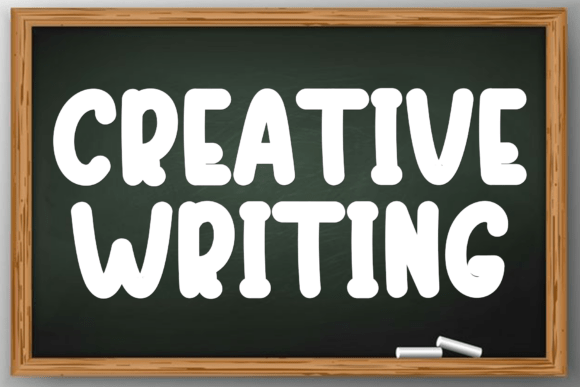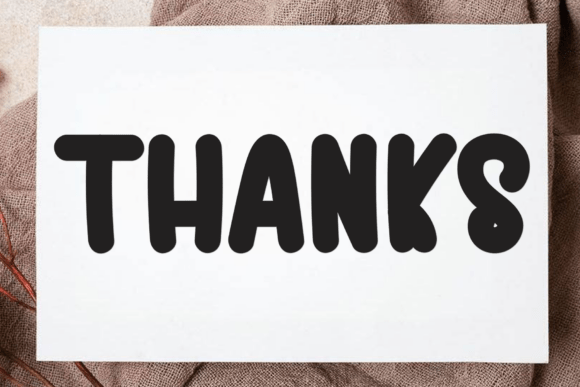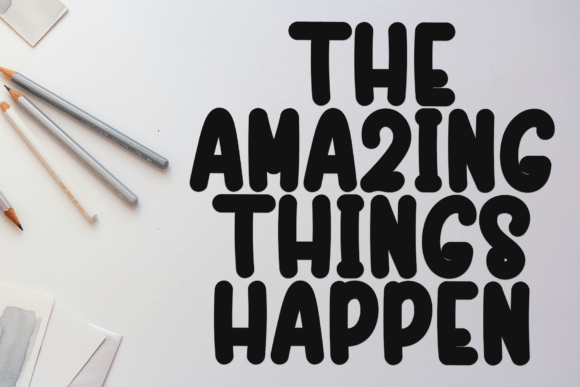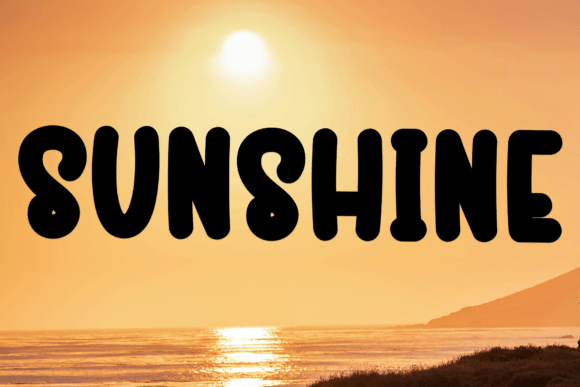
Discover the Beauty of Follow Font
Have you ever sat down with a blank canvas or a fresh sheet of paper, feeling the excitement of creating something new? For many of us, that spark of creativity is what drives us to bring our ideas to life. It’s a moment of pure imagination, where anything is possible. And for designers, the right tools can make all the difference in capturing that magic.
Enter Follow Font, a stunning and versatile typeface designed to add a touch of elegance to any project. With its soft, unique strokes, Follow Font is the perfect companion for designers looking to create meaningful and eye-catching designs. Whether you’re working on a graphic design project, crafting a special message, or simply looking to elevate your artistic expression, Follow Font is an invaluable asset that will help you achieve your creative vision.
Key Features of Follow Font
- Unique Characteristics: Follow Font features a distinctive, hand-drawn design with a mix of modern and vintage elements, making it perfect for creating unique and eye-catching visual content.
- Font Styles: Follow Font comes in multiple styles, including Regular, Bold, Italic, and Bold Italic, providing designers with a range of options to suit their creative needs.
- Scalability: The font is highly scalable, allowing it to be used in a variety of contexts, from small text to large headings, without compromising its quality or legibility.
Follow Font Review
Overall, I have mixed feelings about the Follow Font. While it has some great features, it also falls short in some areas.
- Clean and modern design: The font has a sleek, minimalist aesthetic that makes it perfect for modern websites and applications.
- High legibility: The font is highly readable, even at small font sizes, making it suitable for a wide range of content.
- Good for body text: Follow Font is particularly well-suited for body text, as it provides a clear and concise reading experience.
- Limited character set: The font only includes a basic character set, which may not be sufficient for more complex content or languages.
- No italic or bold variations: The font only comes in regular and condensed variations, which may limit its versatility.
- Not suitable for headings: While the font is great for body text, it may not be the best choice for headings, as it can look a bit bland.
Overall, the Follow Font is a solid choice for body text, but it may not be the best option for more complex or creative projects. With some additional character sets and variations, it could be a more versatile font.
Getting the Most Out of “Follow Font”
For the best results, use “Follow Font” with a consistent font style throughout your design. This will ensure a smooth and professional-looking transition between text elements.
“Follow Font” is useful for creating a cohesive and professional-looking design. It’s commonly used in:
- Business presentations and reports
- Resumes and CVs
- Website and social media content
Alternatives to “Follow Font” for Designers
“Follow Font” is a design principle that emphasizes following the natural flow and rhythm of a font’s letterforms. However, there are several alternatives to consider, each with its own strengths and applications.
1. Counterform
Counterform refers to the negative space within a letterform. Designers can use counterform to create visual interest and balance in their compositions. It’s particularly useful when working with sans-serif fonts or when creating text-heavy compositions.
Q: What is the recommended font size for Follow Font?
The recommended font size for Follow Font is between 12pt and 14pt. However, this may vary depending on the specific design application, screen resolution, and intended use. Experiment with different font sizes to find the optimal setting for your project.